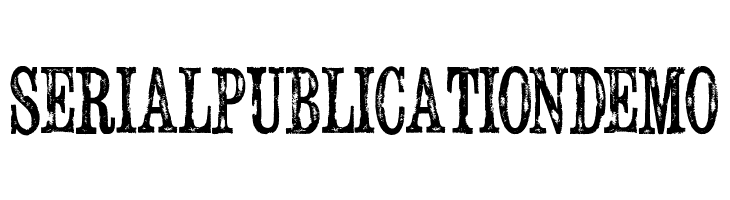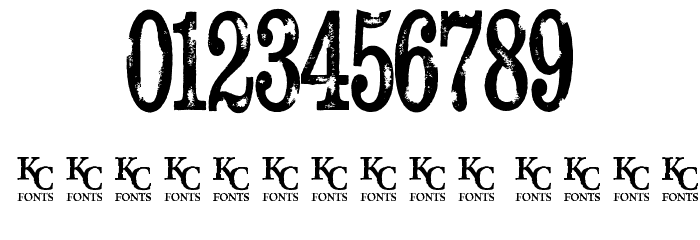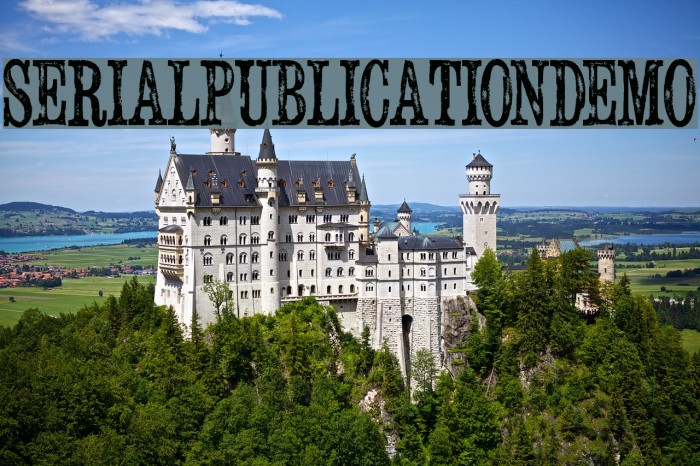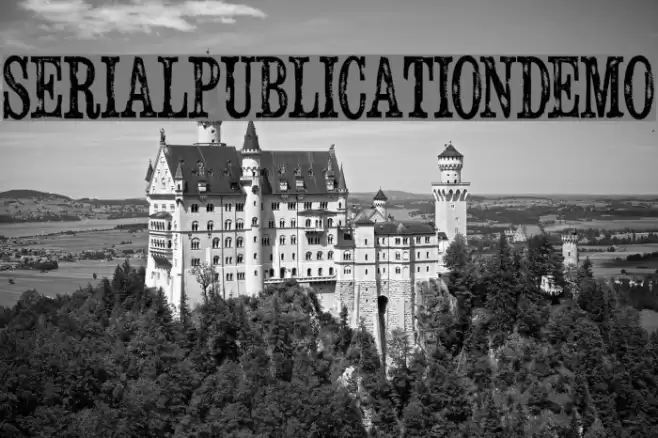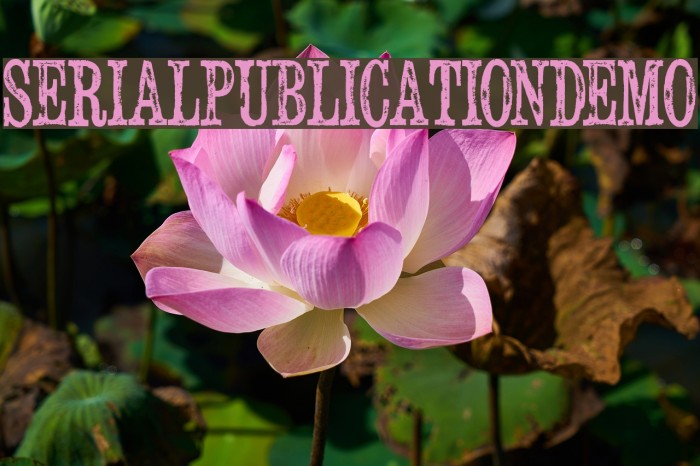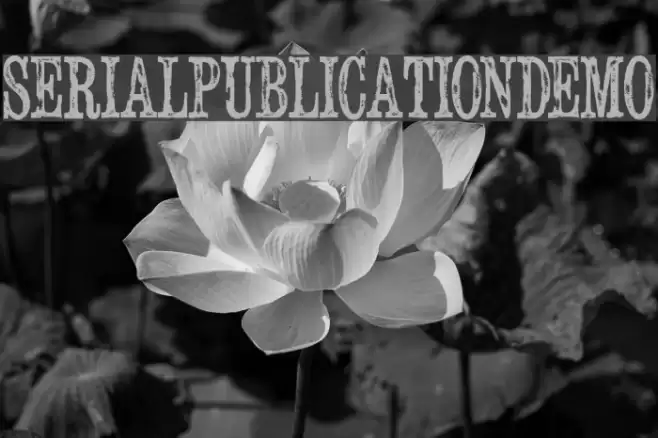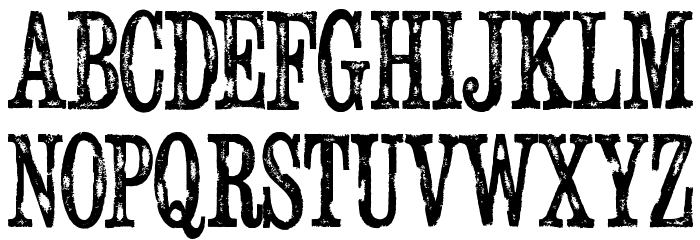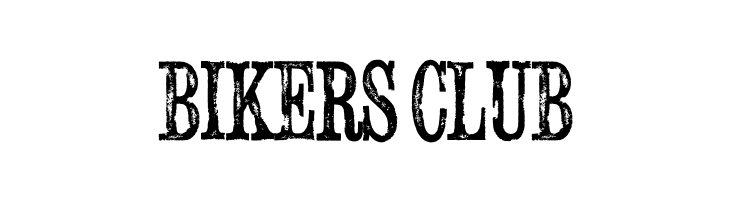
SerialPublicationDemo Font
SerialPublicationDemo Description
This font features a bold, distressed style with a vintage, textured appearance. The uppercase letters are prominent and rugged, giving a sense of antiquity and character. The numerals and special characters maintain this distressed look, adding to the overall cohesive design. The font's rough edges and uneven texture suggest a hand-crafted feel, making it ideal for projects that require a rustic or retro aesthetic. Its boldness ensures readability while the unique texture adds visual interest.
| Overall Style | Vintage |
| Proposed Projects | Ideal for vintage posters, retro-themed branding, rustic product packaging, and creative headlines. |